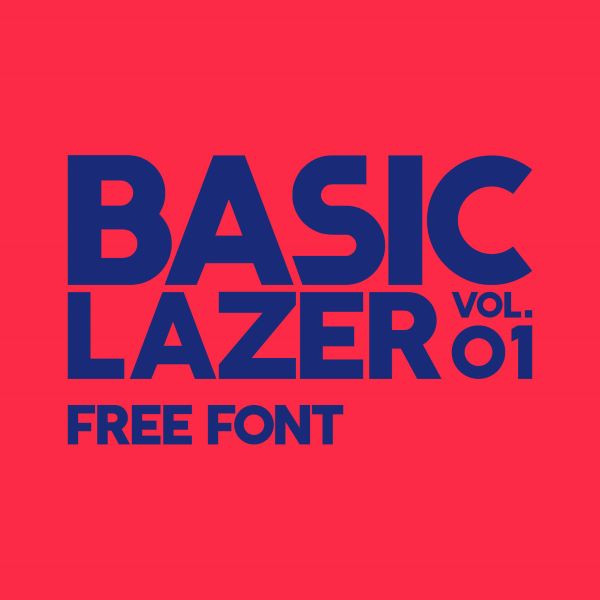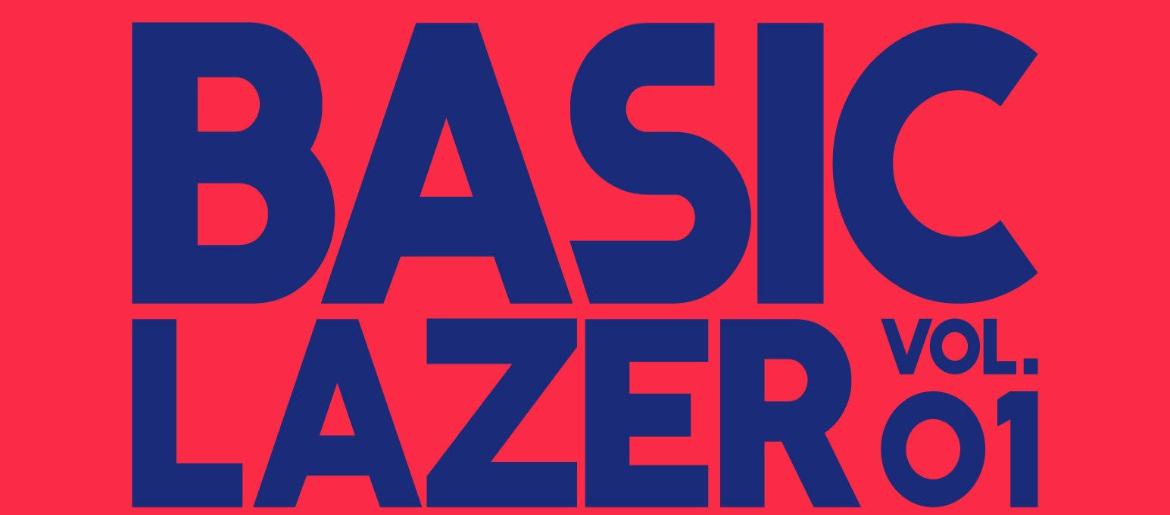
Basic Lazer Font
Basic Lazer by J. Hodgson is a minimalist font and sans-serif font that does exactly what a well-named typeface should — its character is embedded in the name itself. Clean, unadorned, and built for direct impact, it strips the sans-serif to its most essential structural qualities: clear geometric forms, confident spacing, and the kind of quiet visual authority that makes it immediately usable across a wide range of contexts. Numbers, symbols, and accented characters extend its practical utility beyond basic Latin text. Available in both TTF and webfont formats. Free for personal use.